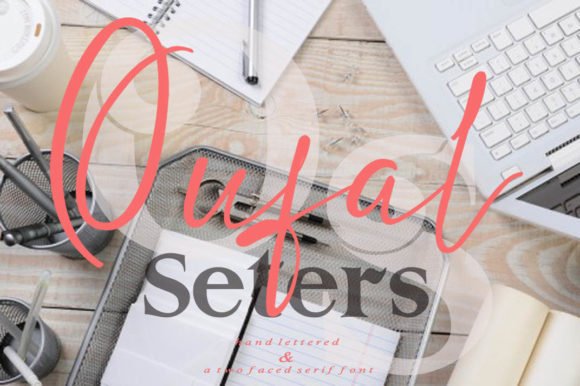
The Perfect Brushstroke: Discovering the Beauty of Aufal Seters Font
Have you ever found yourself lost in a notebook, surrounded by scribbled ideas and fragmented thoughts, only to stumble upon a beautifully written quote that sparks creativity? That’s exactly what happened to the designers who crafted the stunning Aufal Seters Font. This exquisite handwritten typeface is a testament to the power of elegance and sophistication in design.
With its intricate arrangement of letters, Aufal Seters Font adds a touch of refinement to any project, whether it’s a formal business card or a non-formal blog post. Its versatility and charm make it an invaluable tool for designers seeking to elevate their work.
Aufal Seters Font Key Features
- Font Size: Available in a range of sizes, from 8pt to 120pt, with precise control over scaling.
- Resolution: Supports high-resolution output, making it suitable for use in print media and digital displays.
- Unique Character Set: Features a unique set of ligatures, swashes, and flourishes that add a touch of elegance to text.
- Language Support: Supports a wide range of languages, including Latin, Cyrillic, Greek, and many more.
- Font Weight: Offers a range of font weights, from Light to ExtraBold, allowing for flexibility in design.
Aufal Seters Font Review
I recently had the chance to work with the Aufal Seters font, and I must say it’s an interesting addition to any design project. ✨ The font’s unique blend of modern and vintage elements makes it a great choice for those looking to add some character to their work.
Here are some of the things I like about Aufal Seters:
- ✨ Distinctive style: The font’s eclectic mix of styles makes it stand out in any design.
- ✨ Versatility: It can be used for a wide range of projects, from logos and branding to body text.
- ✨ Good legibility: The font is clear and easy to read, making it suitable for both print and digital applications.
- ⚠️ Limited font size range: The font may not be suitable for very large or very small text sizes.
- ⚠️ May not be suitable for corporate or formal designs: The font’s quirky style may not be the best fit for more conservative or traditional designs.
Overall, I think the Aufal Seters font is a great choice for designers who want to add some personality to their work. While it may have some limitations, it’s definitely worth considering for the right project.
Aufal Seters Font is a great choice for creative projects that require a unique and eye-catching font. Use it for headings, titles, or emphasis to add visual interest to your design. You can also use it for branding and logos to create a distinctive and memorable identity.
Aufal Seters Font is commonly used in creative industries such as graphic design, advertising, and publishing. It’s also suitable for personal projects, such as creating a portfolio or a blog.